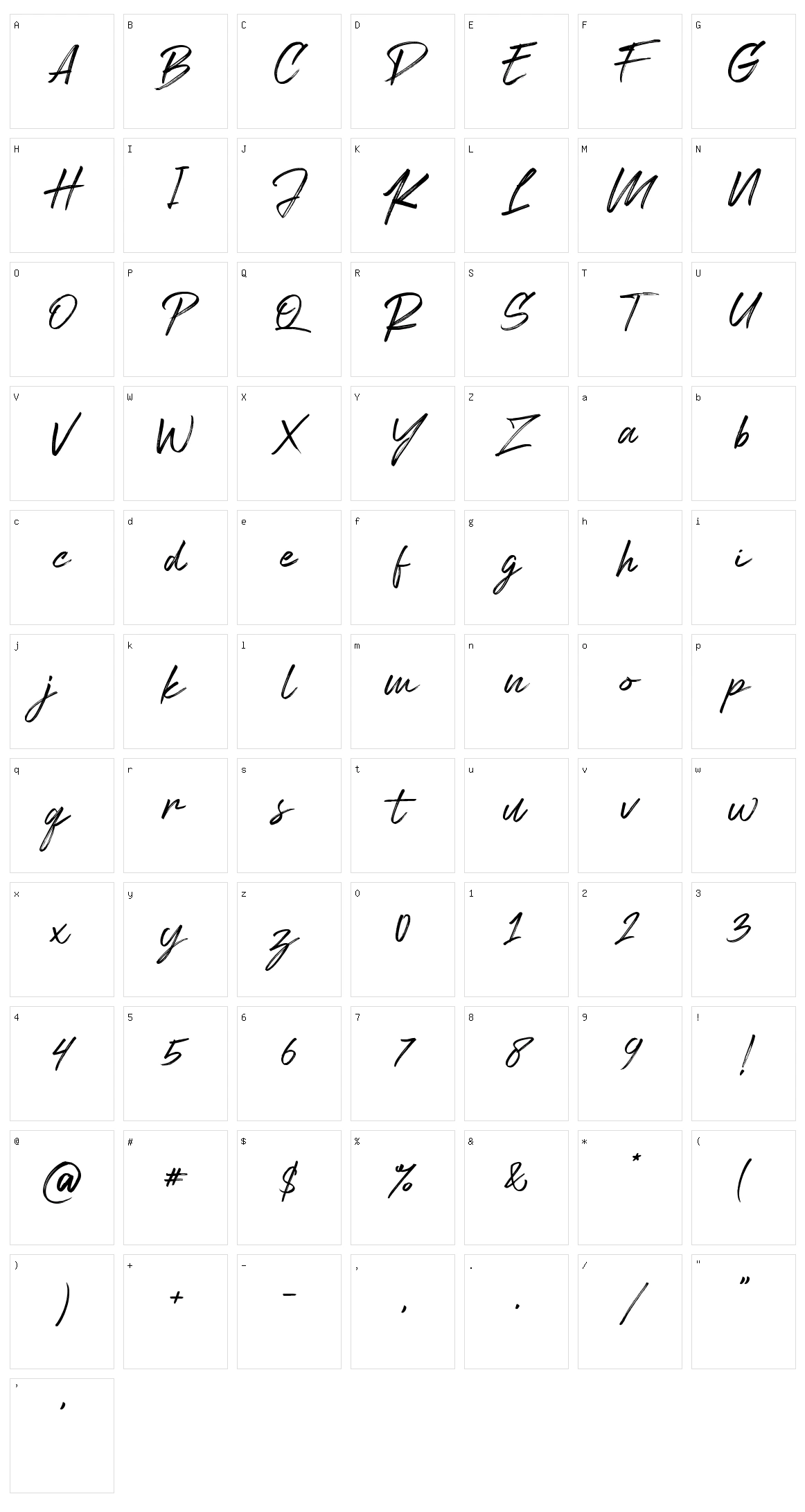
The free font Bladekill is carefully designed by Fontherapy, showcasing a thoughtful balance of creativity and usability and falls under the Script font style. When you download the ZIP file, it contains only 241.09 KB of font files, making it lightweight and quick to download. Please review the license details below to understand permitted usage and distribution rights. If license information is not available, we recommend using this font for personal projects only or contacting the author directly for commercial usage permissions.